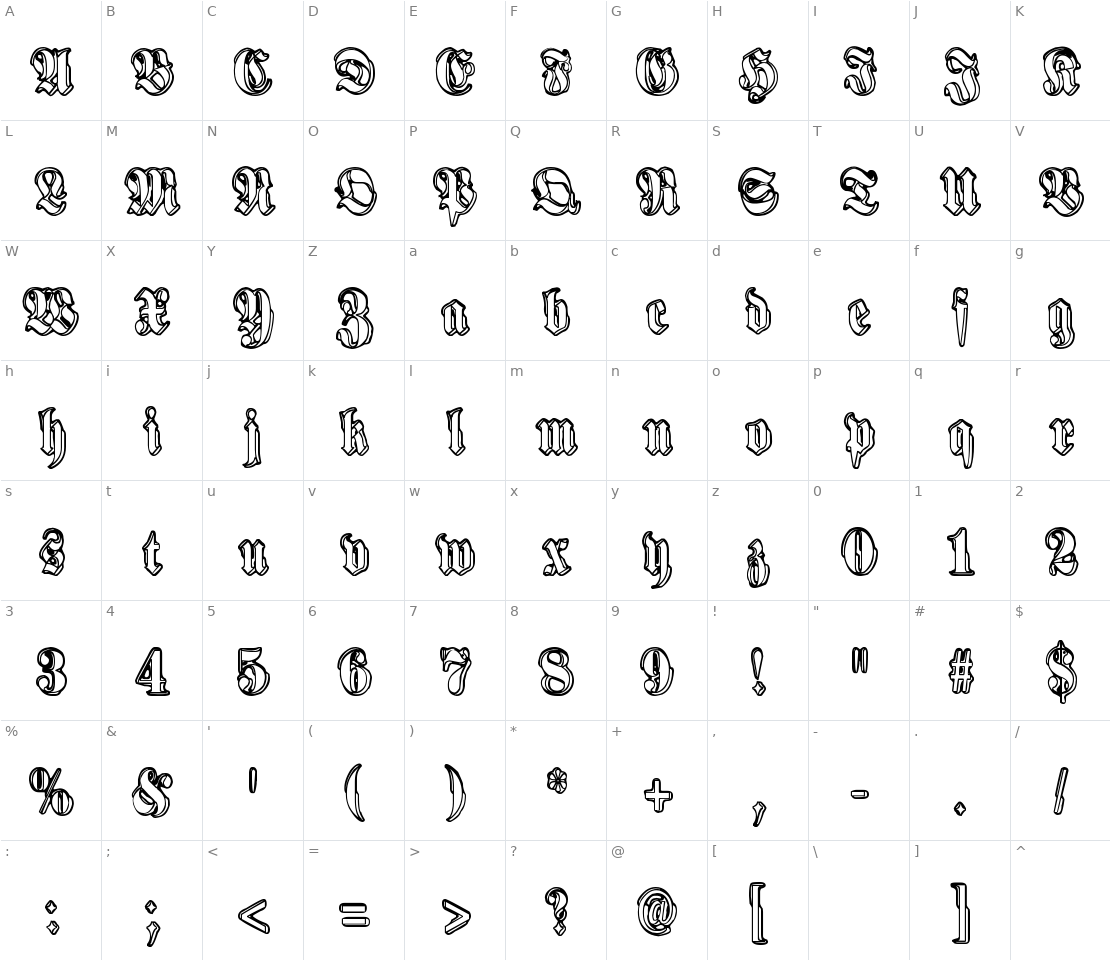
Harmaa Perkele
Harmaa Perkele is an ornate blackletter display face from junkohanhero that pairs traditional Fraktur structure with a 3D outline treatment, giving the gothic letterforms an unexpected dimensional quality. The decorative detail is dense and unapologetically heavy, so it reads best at large sizes where the intricacy of each character can come through. A strong choice for headlines, band artwork, or medieval-themed projects where you want blackletter with a little extra visual drama.